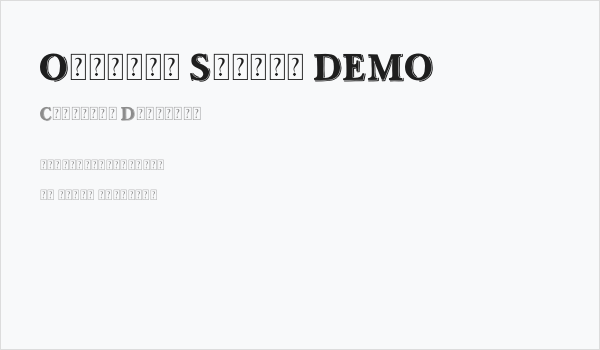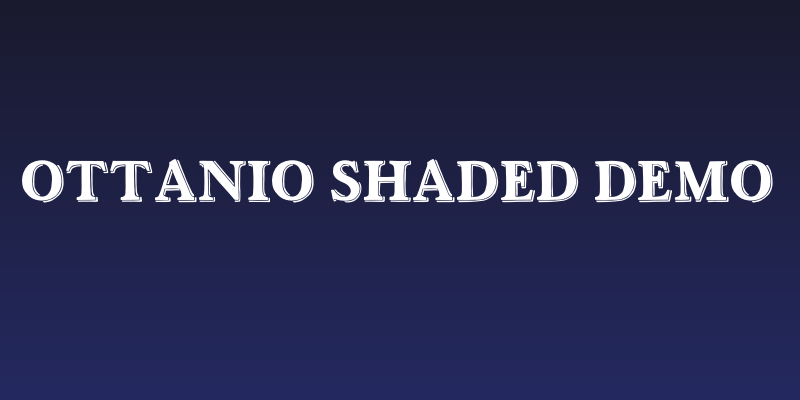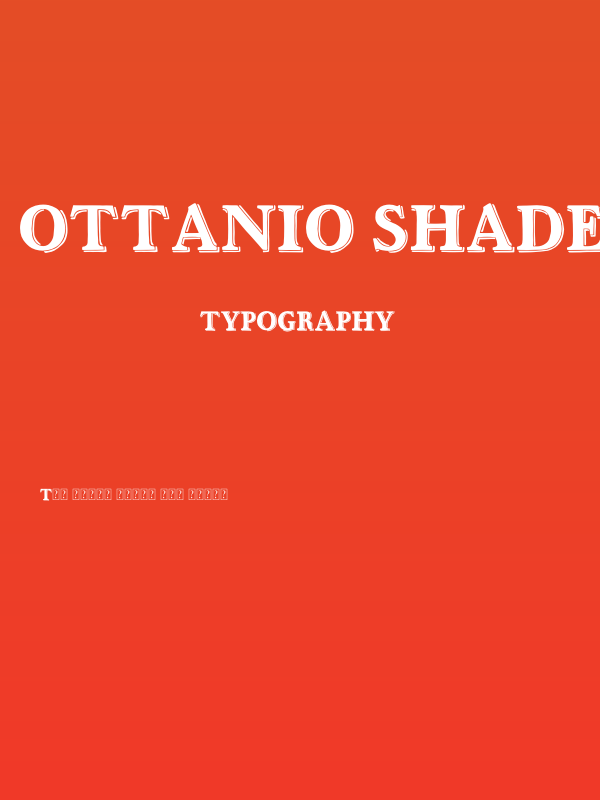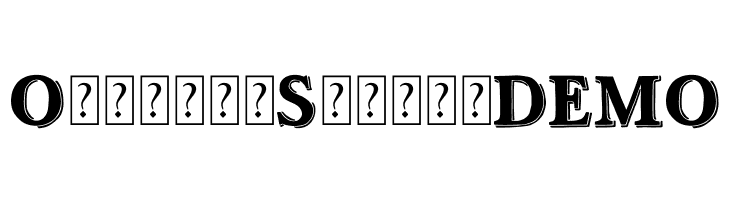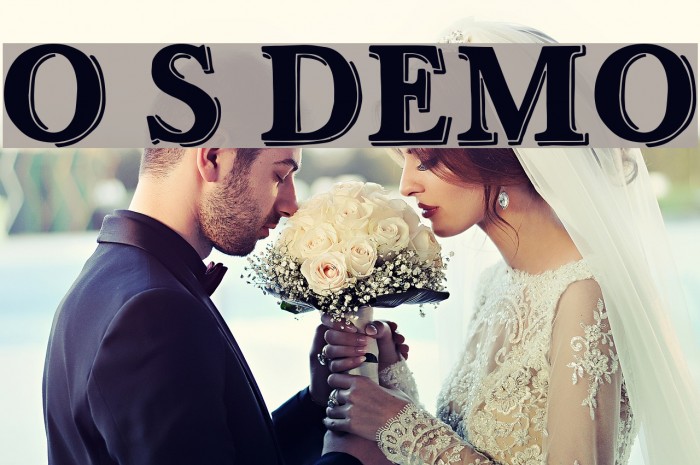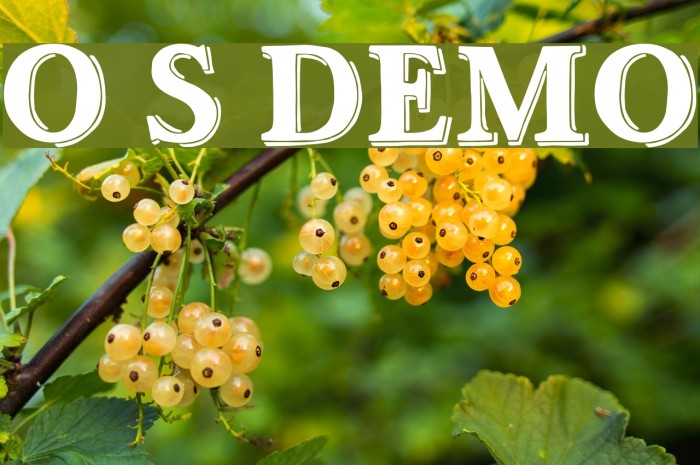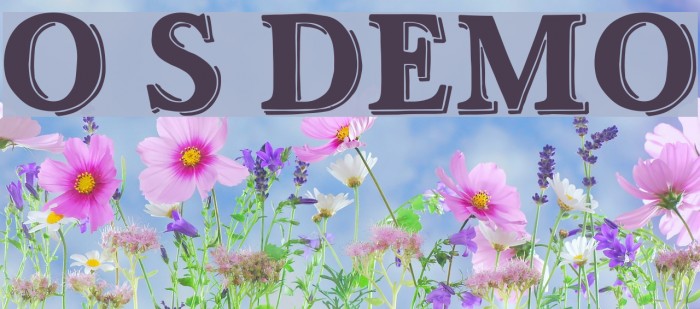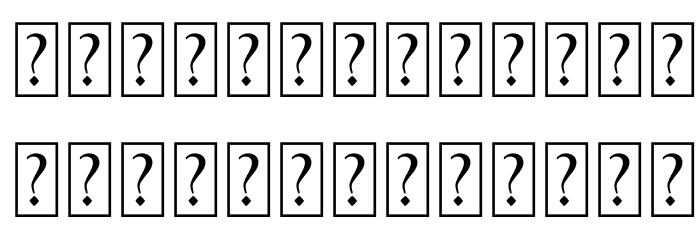
Ottanio Shaded DEMO Font
Ottanio Shaded DEMO Description
This font features a bold and striking serif style with a distinct shaded effect that adds depth and dimension to each character. The uppercase letters are prominently displayed with strong, angular serifs that give a sense of authority and elegance. The shading is consistent across all characters, providing a uniform appearance that enhances readability while maintaining a decorative flair. The font's design is reminiscent of vintage signage, making it ideal for projects that require a touch of classic sophistication. Its bold presence makes it suitable for headlines, titles, and any design that aims to capture attention with a sense of grandeur.
| Overall Style | Vintage |
| Proposed Projects | Perfect for vintage posters, book covers, branding, and any project needing a classic, bold statement. |